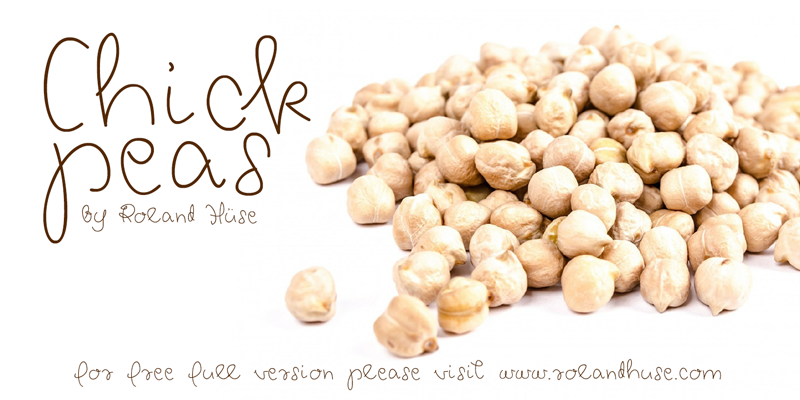
CHICKPEAS demo is a quirky handwriting font. This font is a demo version ,full (also FREE) version only available at http://www.rolandhuse.com , however, donations are always welcome and appreciated. Please contatct me if you have any questions or feedback, also about the following: - Discovering kerning problems while using - Or any other question or feedback. You MAY NOT sell this font or claim them as your own. You MAY NOT edit or rename this font. You MAY NOT redistribute this font. Thank you & I hope you like this font, Roland http://www.rolandhuse.com https://www.facebook.com/pages/Runes-And-Fonts/123221817784772 |